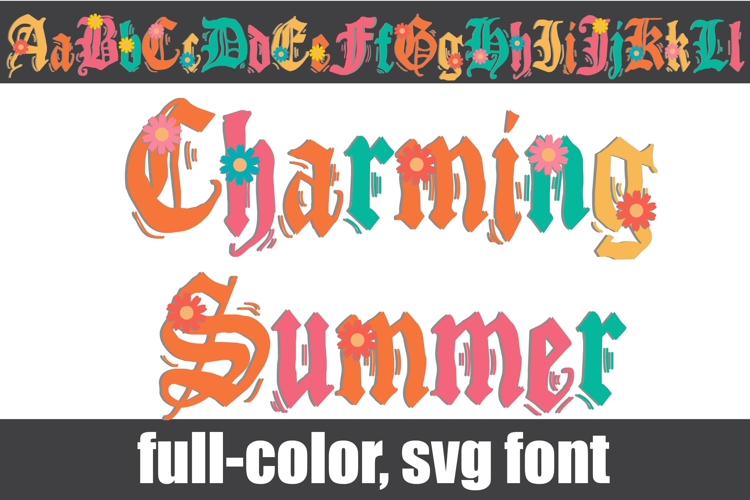
Charming Summer Color Font
This full-color, blackletter-style font is in a summer color palette and sports some sunny flowers. There is an alt case of additional colors of each letter that you can access through your system's character map.